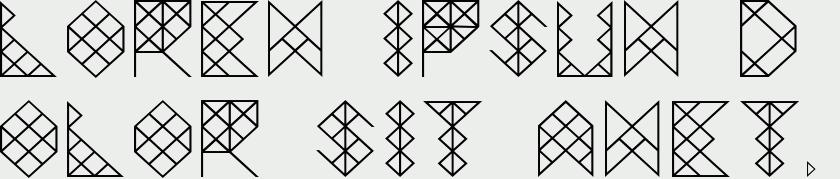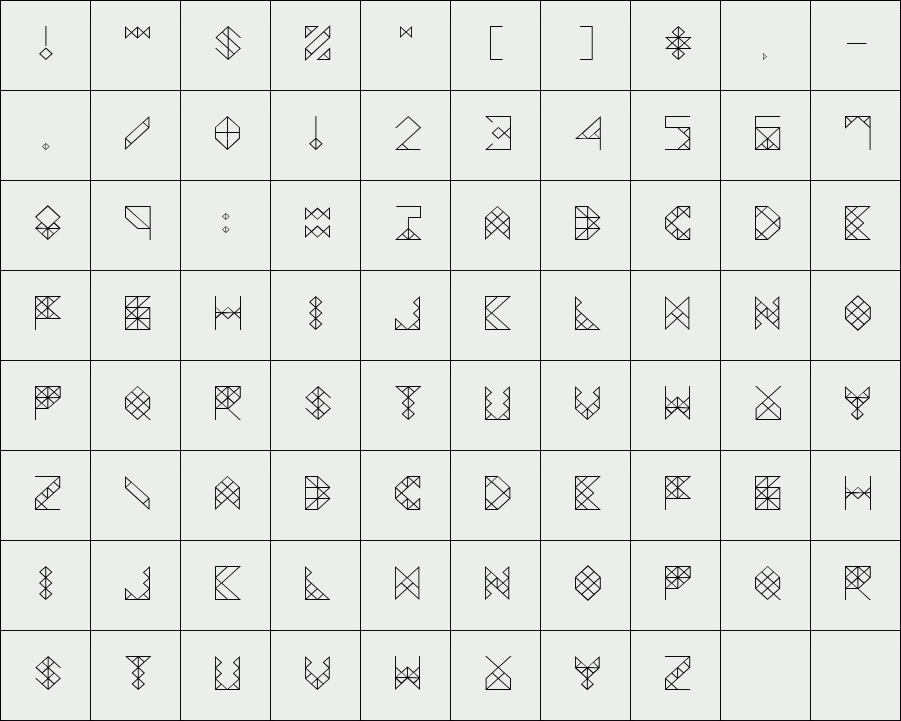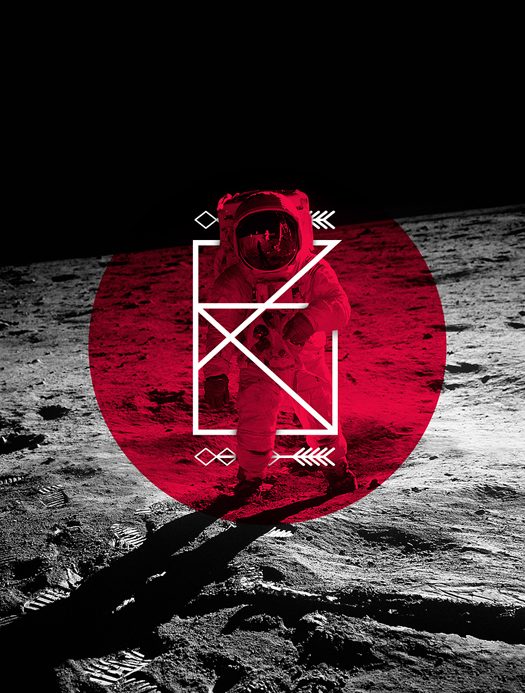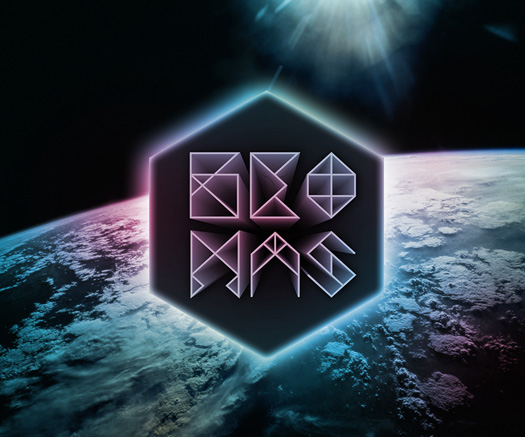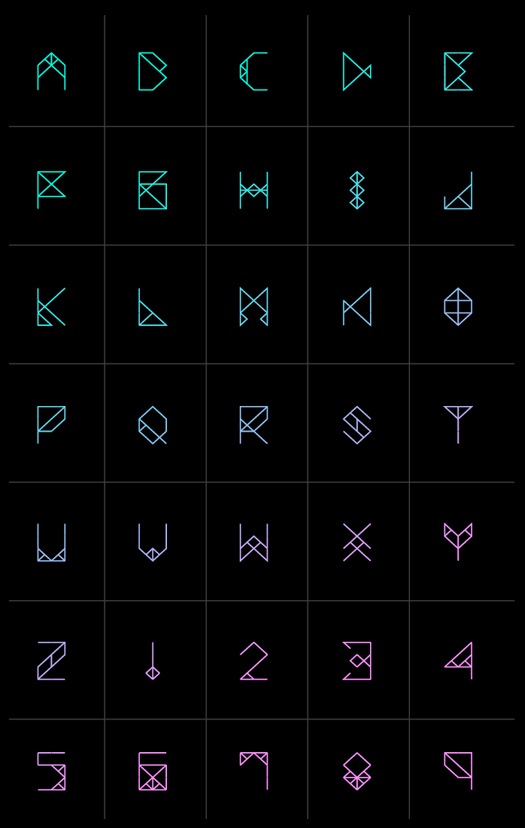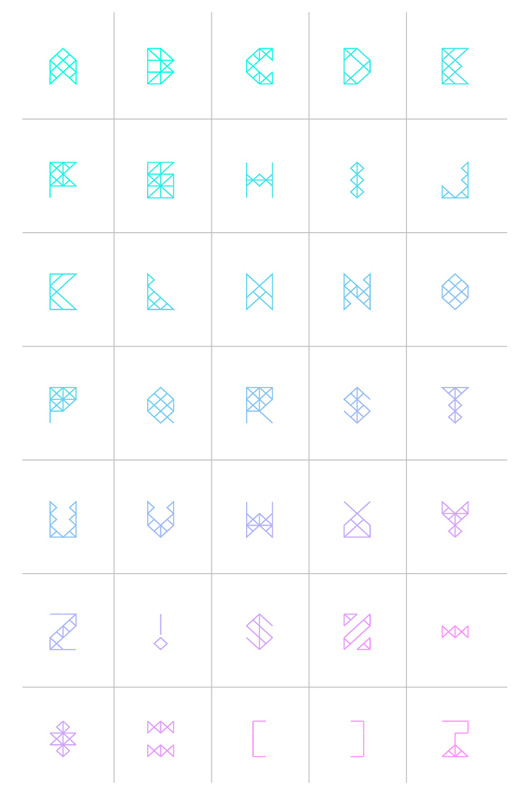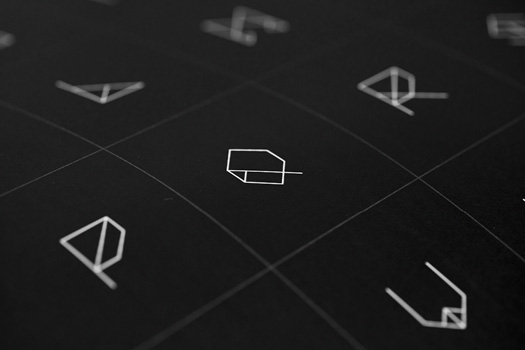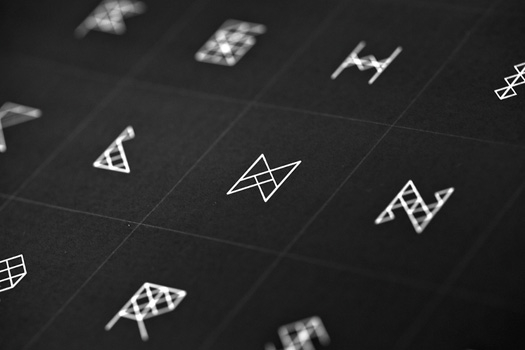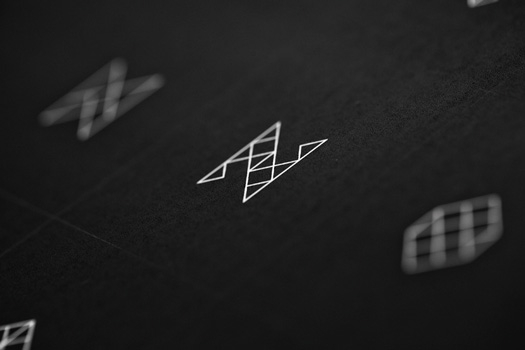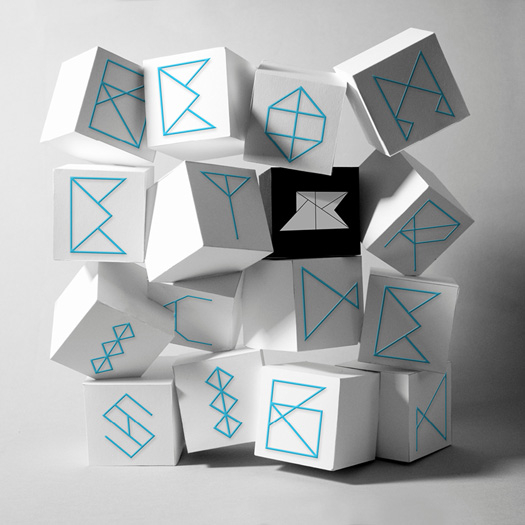
Geomas
/ Geomas alternative
Ever listened to a piece of music and got inspired? Well this was the case for the creation of Geomas. I was never really a fan, but lately I have been listening to Dubstep. I listened to the track Kill The Noise (Part 1) and the intro to this track took me on a journey far from here. It felt futuristic, bold, calculated and systematic. And thus, Geomas was created. It's funny how music can do that to you.